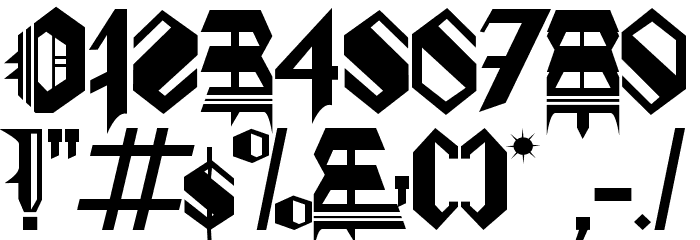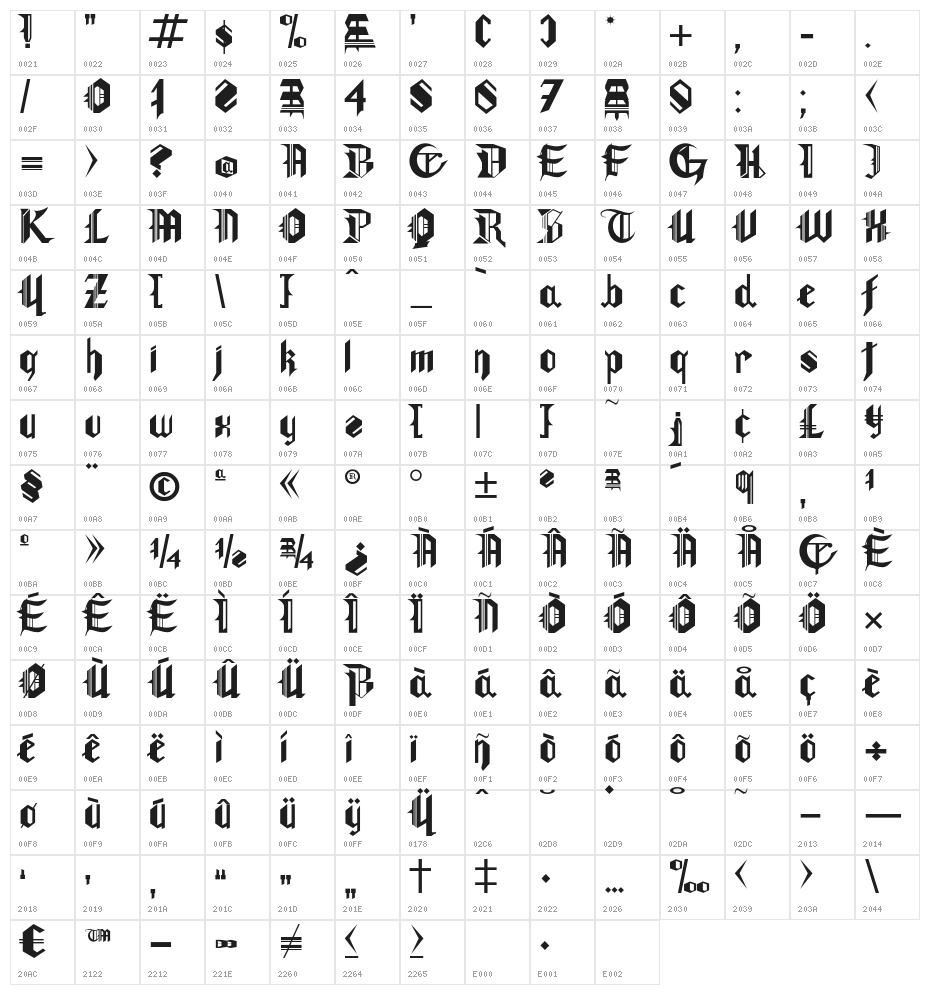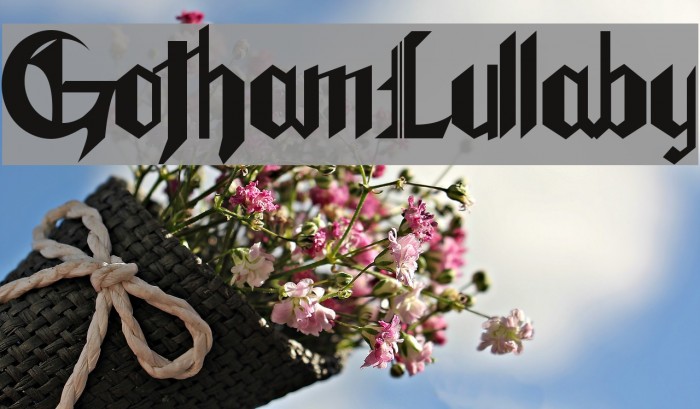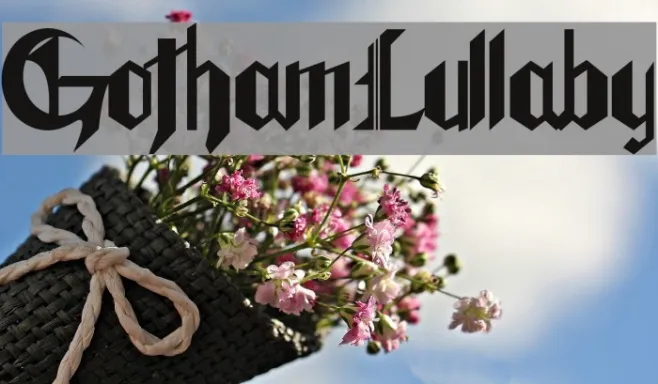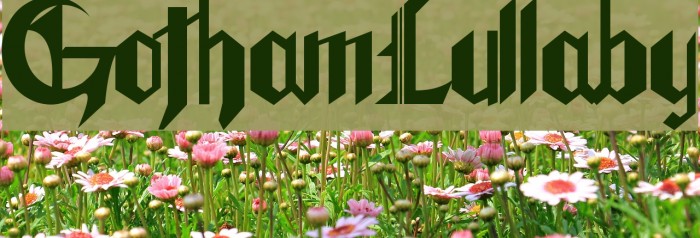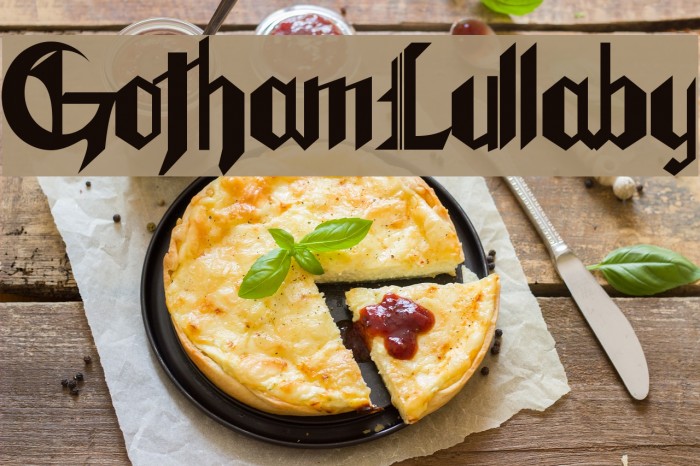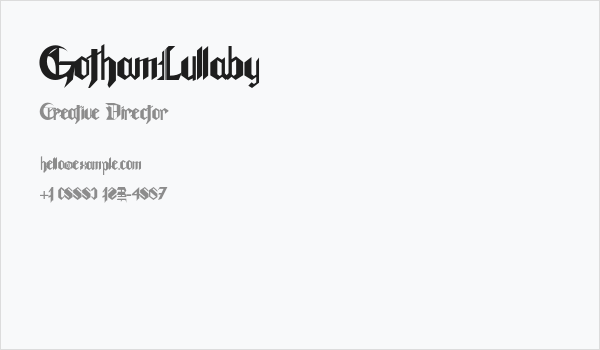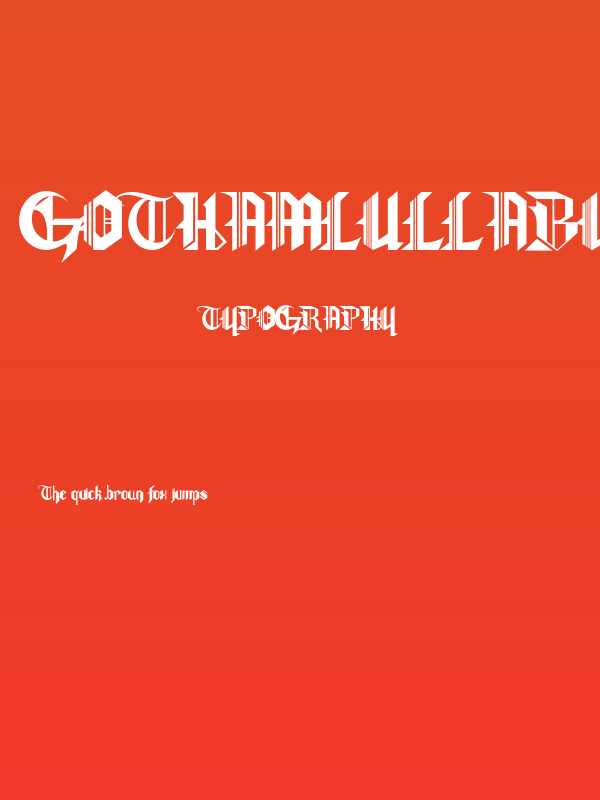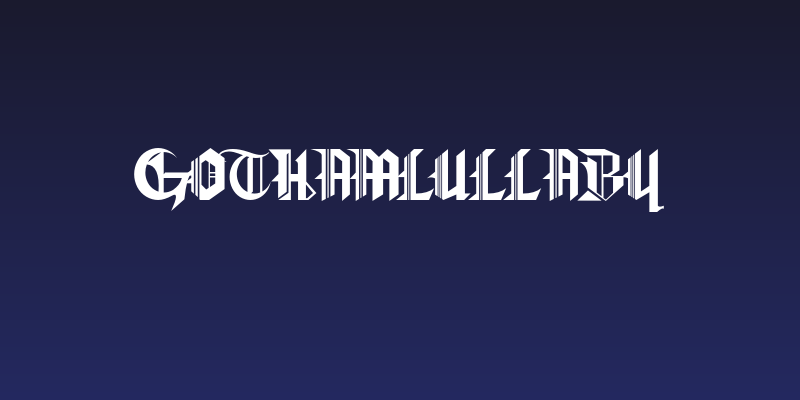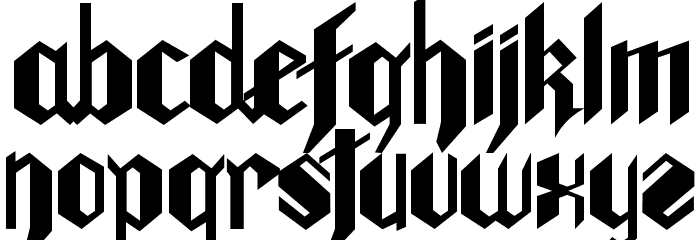
GothamLullaby Font
GothamLullaby Description
This font features a bold and striking design with a strong Gothic influence. The uppercase letters are characterized by sharp angles and intricate detailing, creating a sense of drama and intensity. The lowercase letters maintain a similar aesthetic, with a slightly more streamlined appearance. Numbers and special characters follow the same bold and decorative style, making them stand out prominently. The overall design is highly decorative, with a unique flair that captures attention and adds a sense of mystery and elegance.
| Proposed Projects | Ideal for projects that require a dramatic and eye-catching typeface, such as posters, album covers, or branding for edgy or alternative brands. |